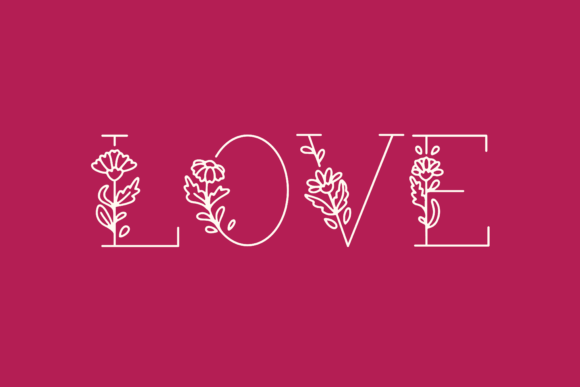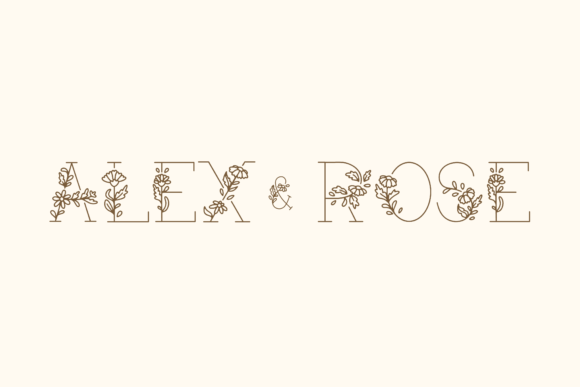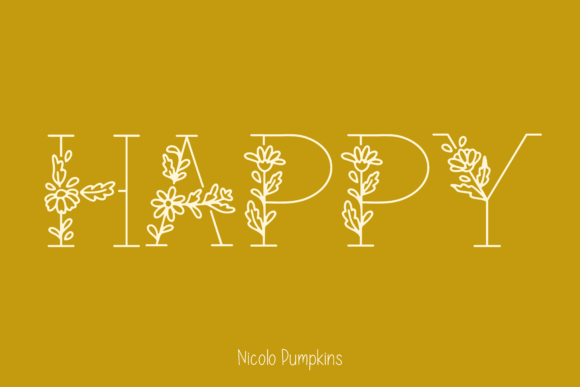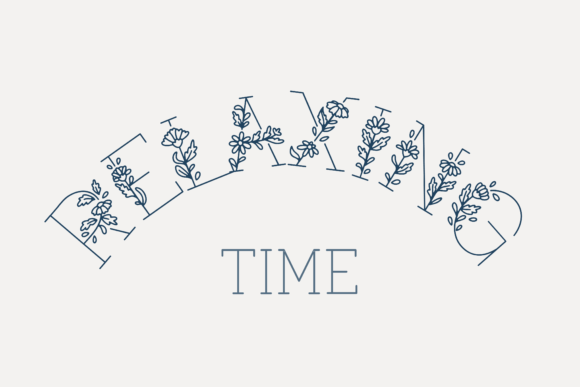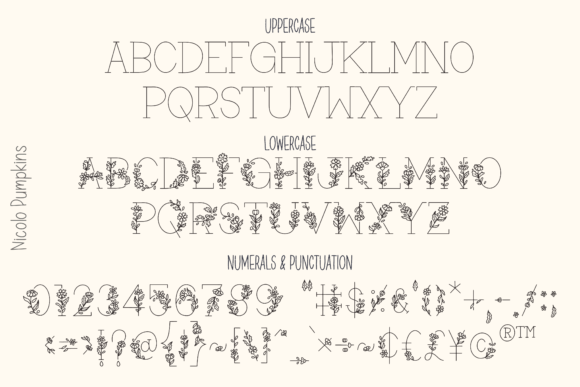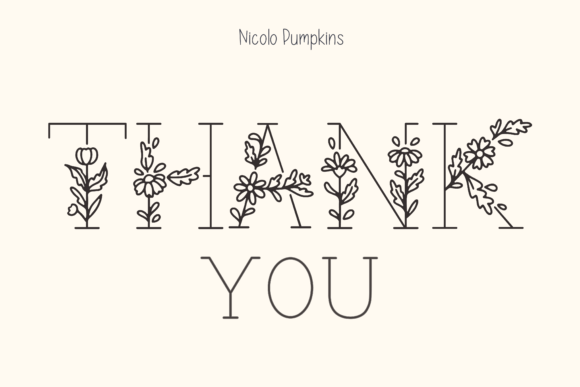
Introduction to Daisy Garden Font
Daisy Garden is a minimal modern daisy decorative font suitable for designing T-shirts, tote bags, hats, stickers, wedding invitations, logos, cards, quotes, and more.
This is a minimal font that is perfect for classic and wedding designs .